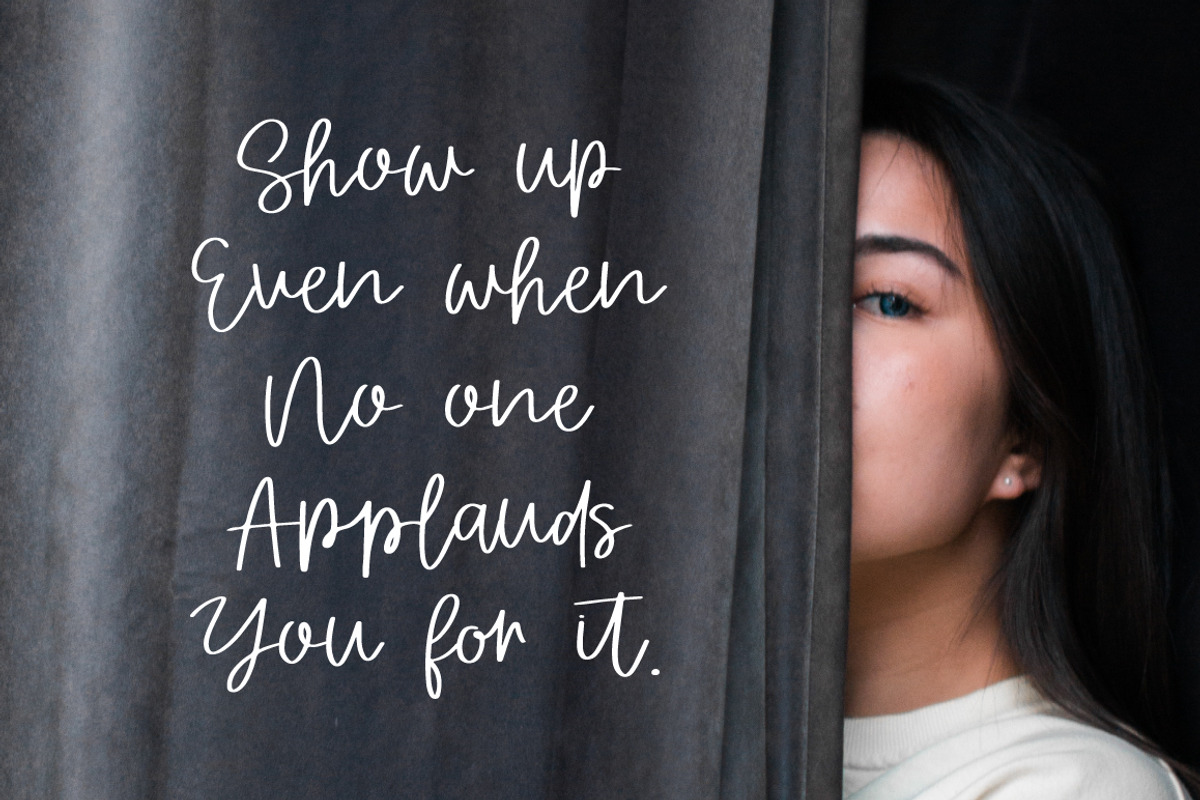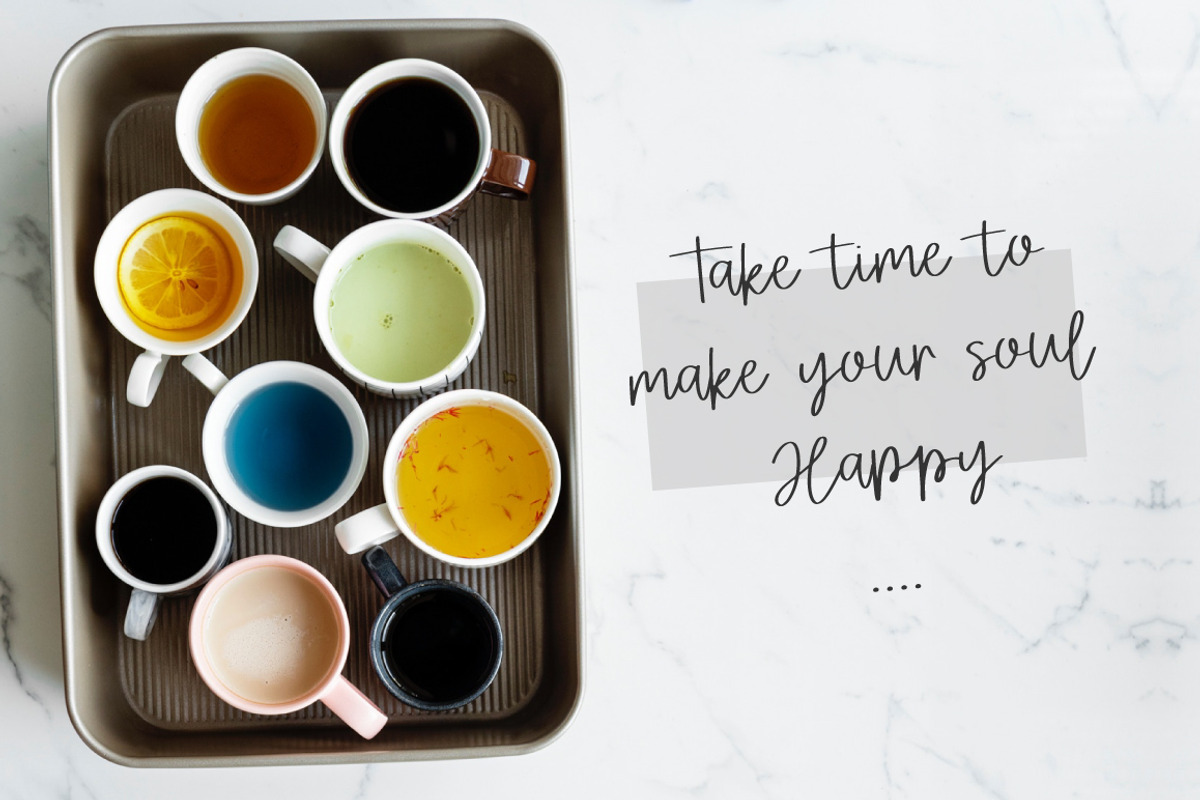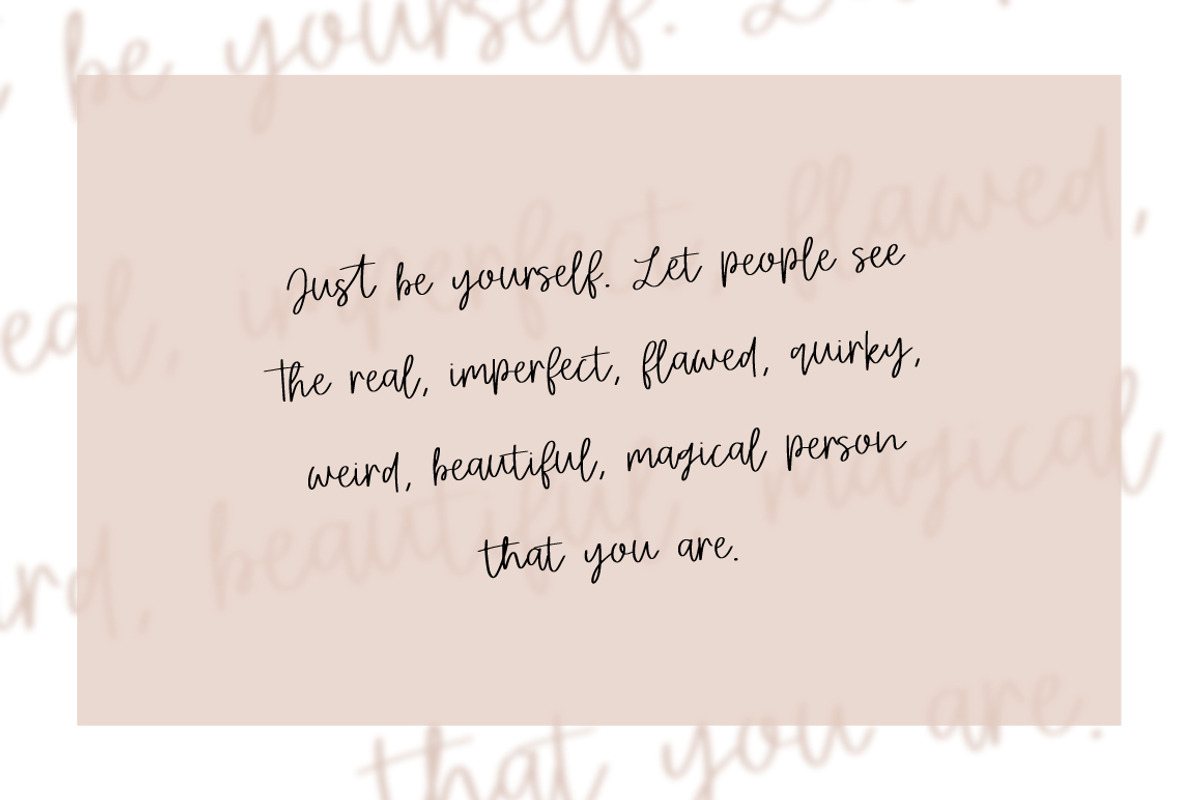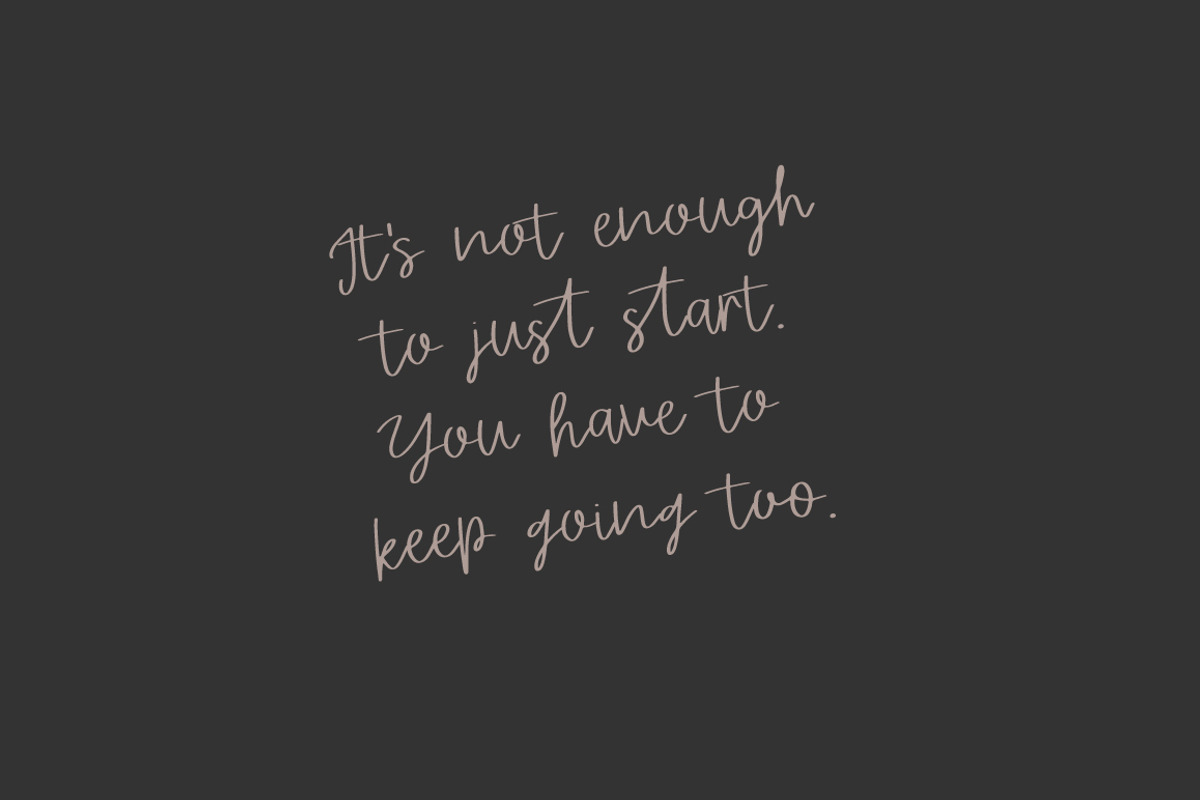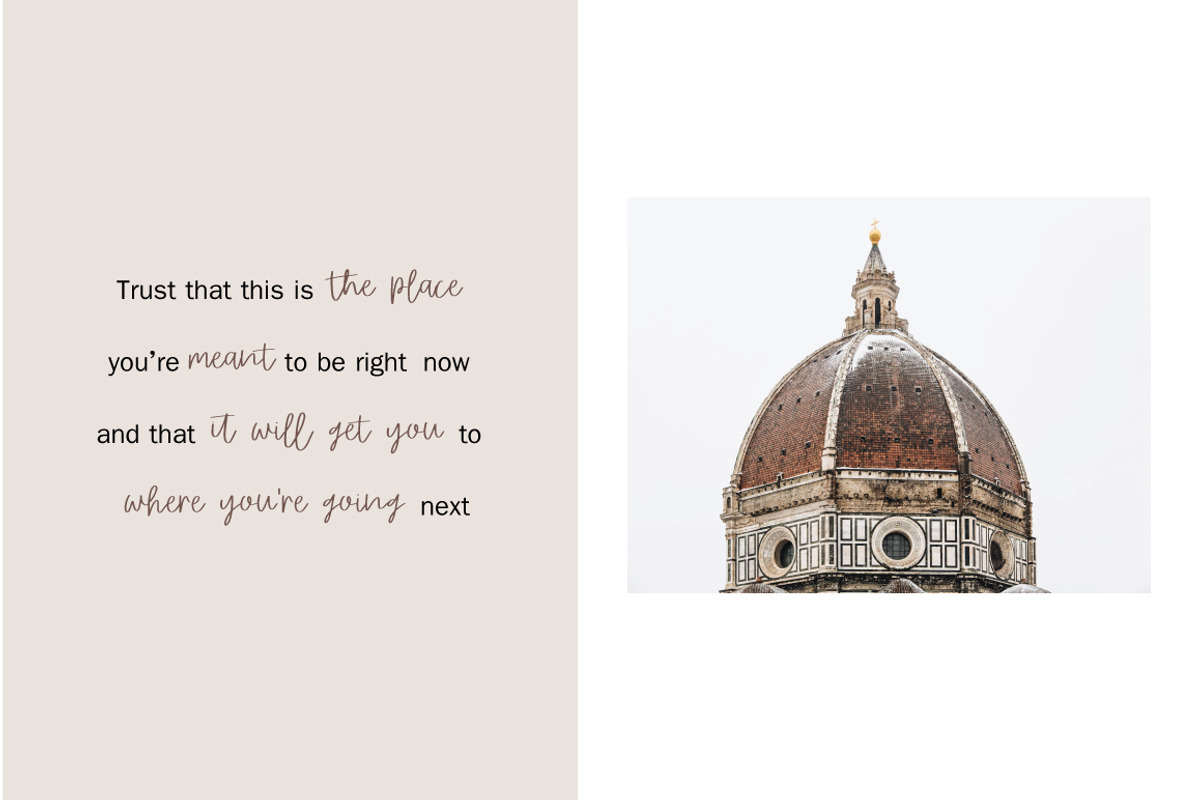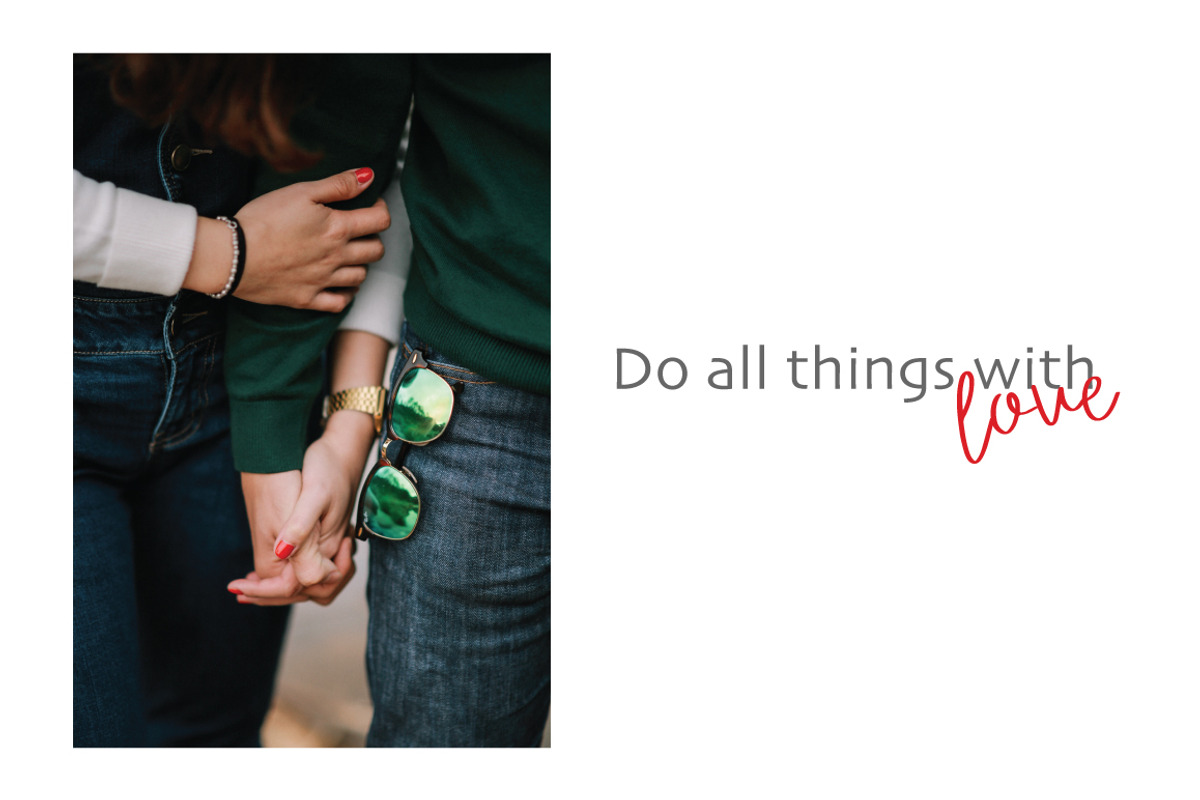
Let's Party | Signature Font
Let's Party is a classic script font. Every single letter has been creative carefully and Perfectly for every project. This font is especially for you if you need to add tenderness to your project. Combine it with other fonts and add style to your project and a little romantic script designed for making your set of invitations, quotes, blog posts, and more completely beautiful
Multilingual support is included for Western European